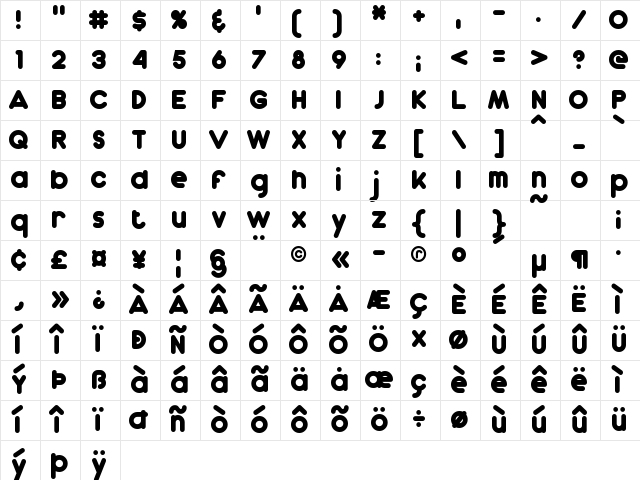
Dunkin Regular
Foundry: Neale Davidson
Designer: Neale Davidson
Design Context for Dunkin
Dunkin is a composed and adaptable typeface that performs quietly and consistently across a wide range of design contexts.
Pro Tip: Use Dunkin in both headline and body roles to test its range before committing to a single application.